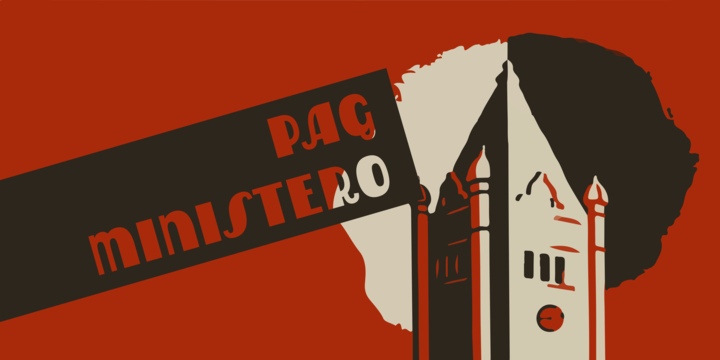
PAG Ministero Font
This governmental typeface is perfect for official documents, ministry branding, institutional signage, bureaucratic forms, diplomatic correspondence, government websites, public administration graphics, policy publications, and authoritative design projects.
What makes this font exciting is its institutional authority combined with bureaucratic precision, offering designers a formal typeface that captures governmental dignity while delivering official credibility and administrative sophistication.
The PAG Ministero font family includes regular, bold, condensed, official, and seal variations, providing complete governmental design solutions for creating authoritative institutional visual identities.
Whether you're developing official communication systems or crafting institutional brand experiences, PAG Ministero Font Free Download brings exceptional governmental presence and administrative authority to every application. This formal typeface combines traditional bureaucratic typography with contemporary institutional design, creating letterforms that command respect and official recognition. The font's authoritative construction and policy-ready details make it perfect for organizations requiring immediate governmental credibility.
PAG Ministero Font features carefully crafted institutional styling with authentic governmental character that conveys genuine administrative power. Each character has been engineered for maximum official impact, with precise proportions and formal elements that enhance the bureaucratic aesthetic. The font's ministerial qualities make it particularly effective for public sector organizations and policy-focused applications.
Professional designers choose PAG Ministero Font for projects demanding authentic governmental credibility and institutional atmosphere. Its administrative heritage makes it exceptionally well-suited for government agencies, policy institutes, and regulatory organizations. The font's versatile official variations allow designers to control the institutional intensity, from subtle administrative elegance to full governmental authority.
The complete PAG Ministero Font package offers extensive governmental ornaments and official symbols that enhance the ministerial aesthetic. Advanced institutional features allow designers to create complex bureaucratic effects with multiple administrative options. This comprehensive governmental toolkit ensures authentic results whether you're creating official publications, policy documents, or authoritative branded experiences.